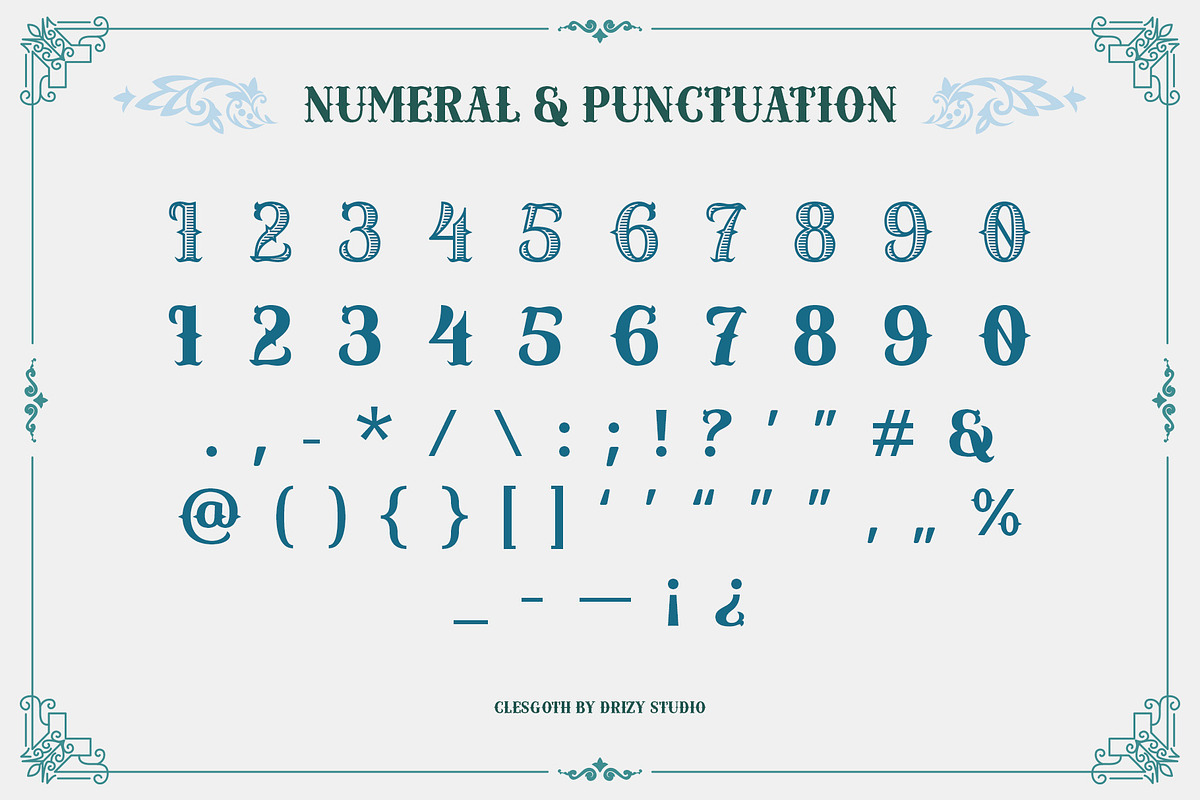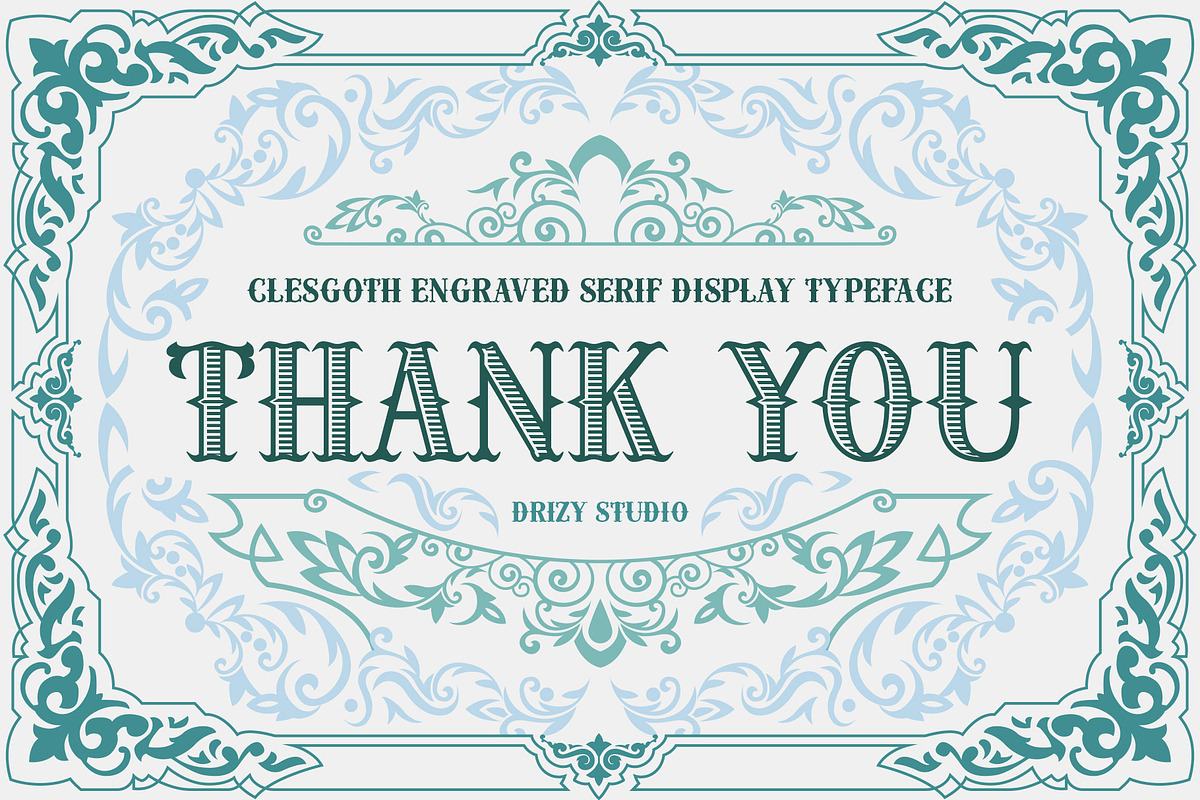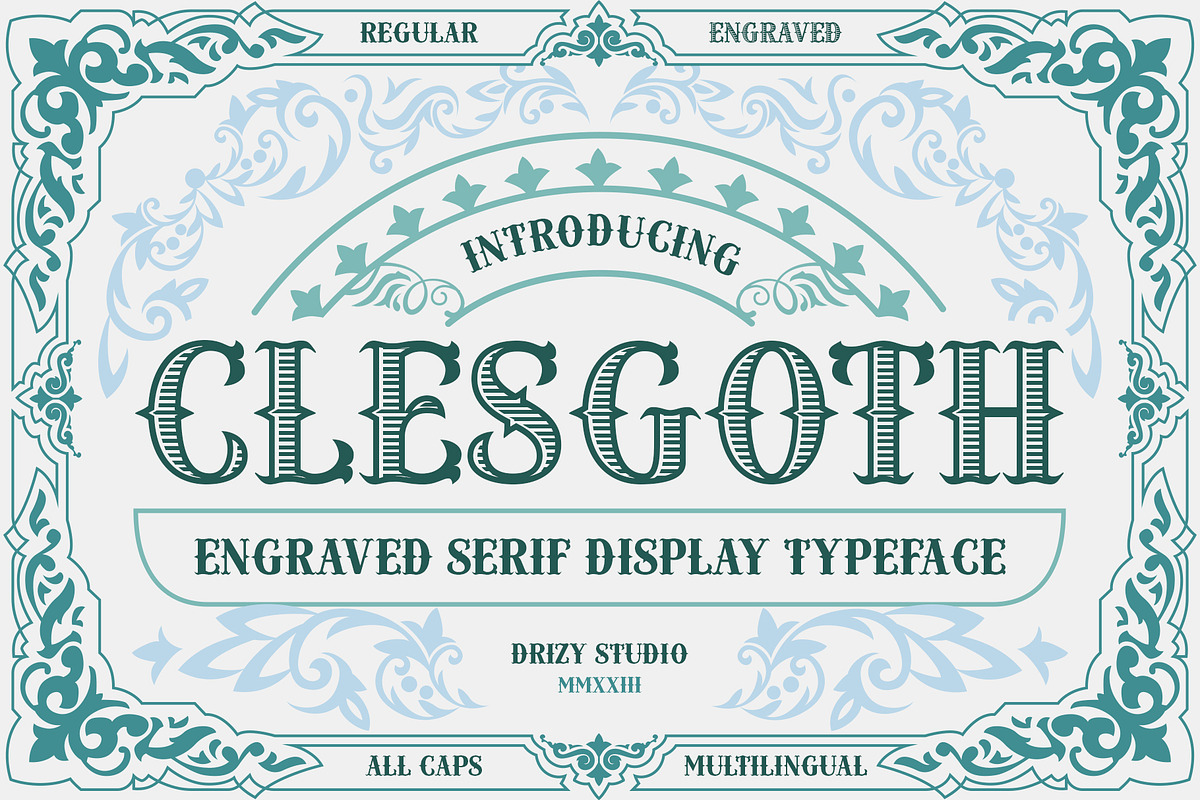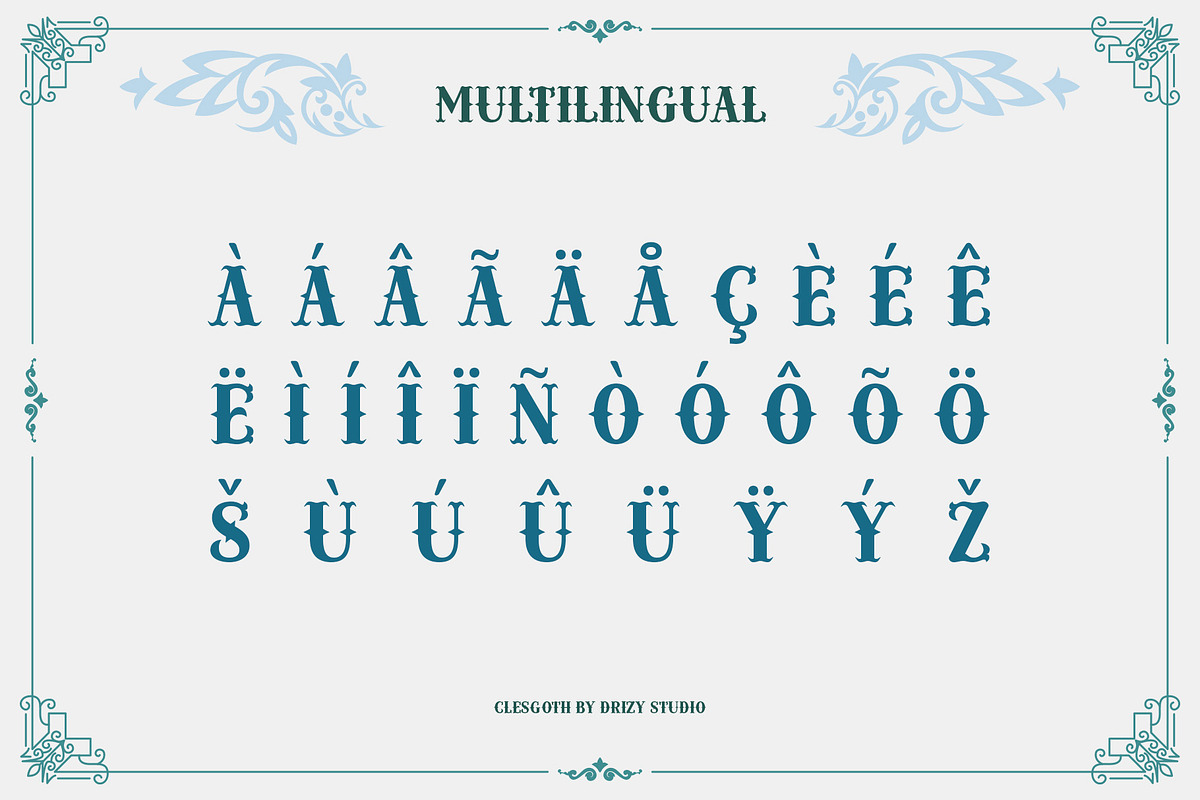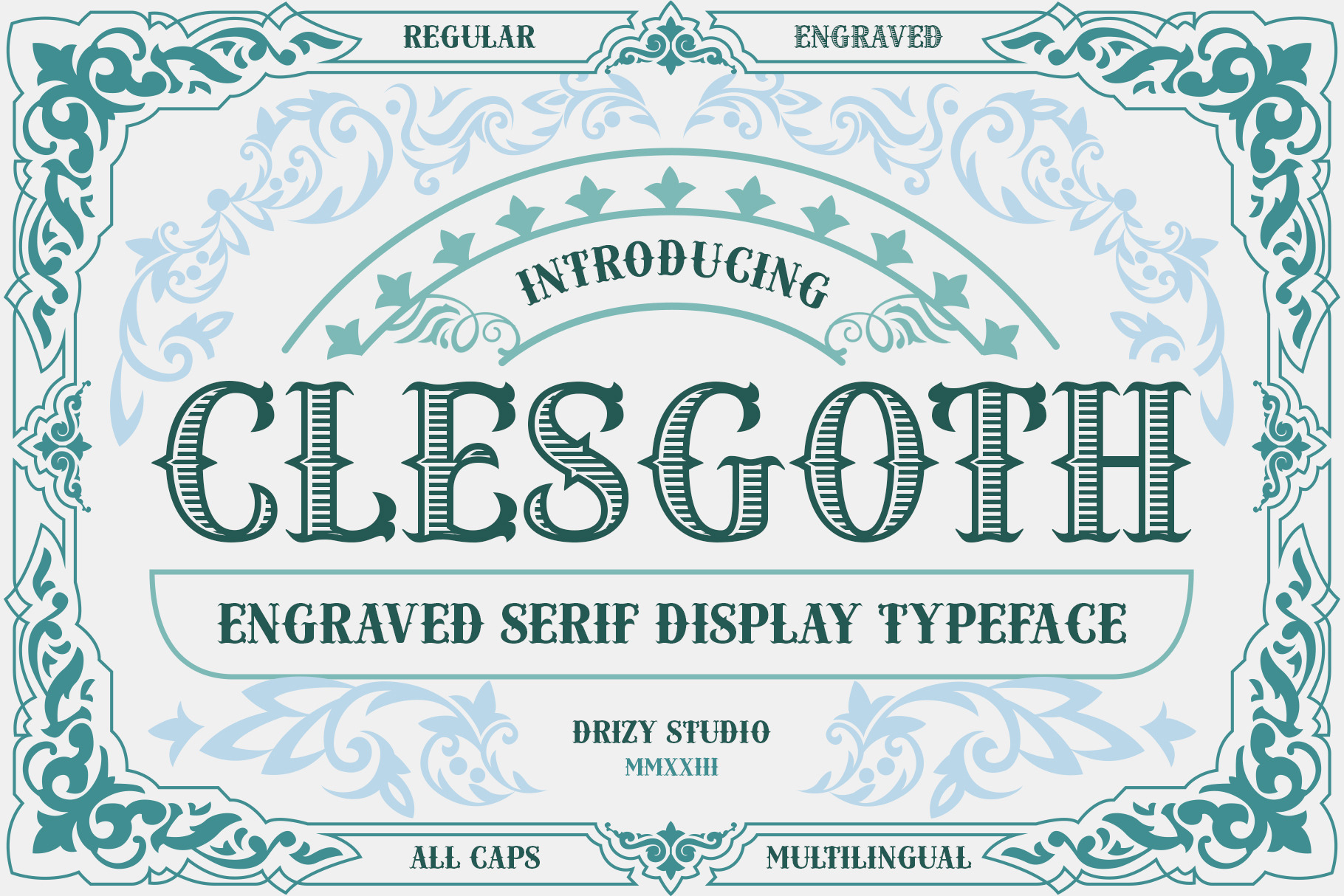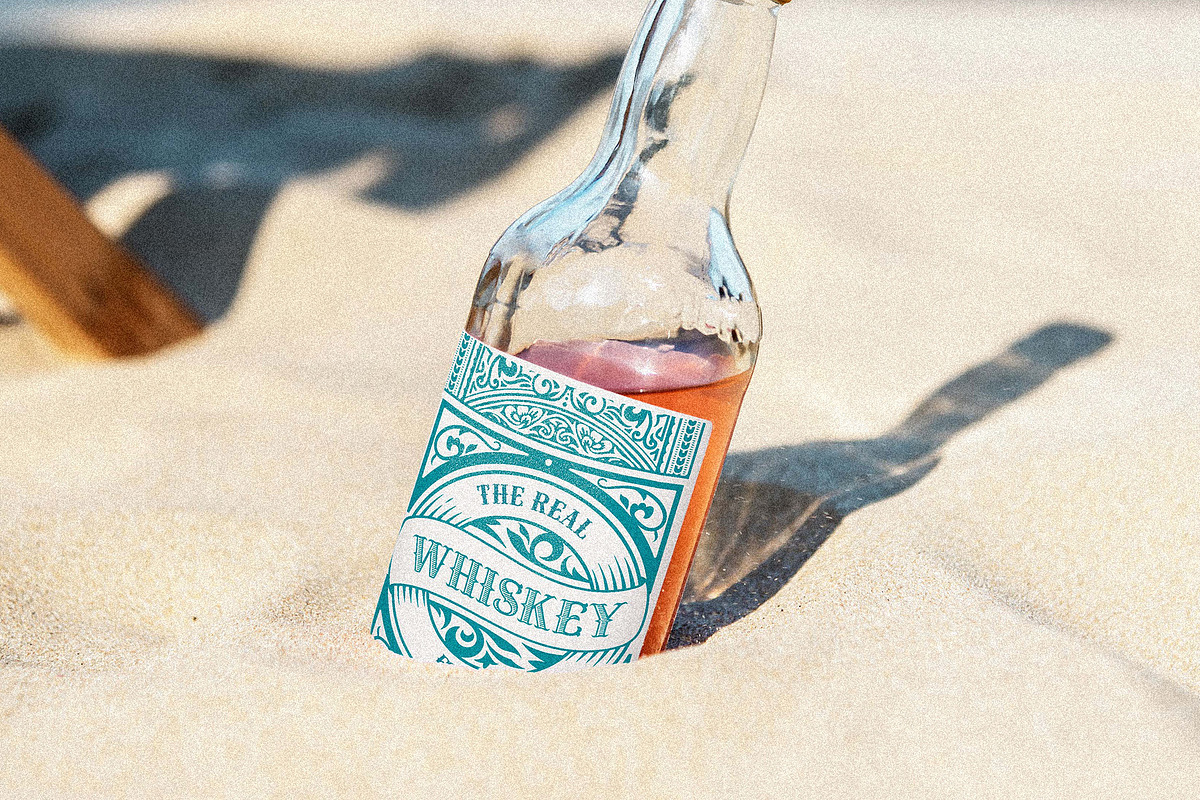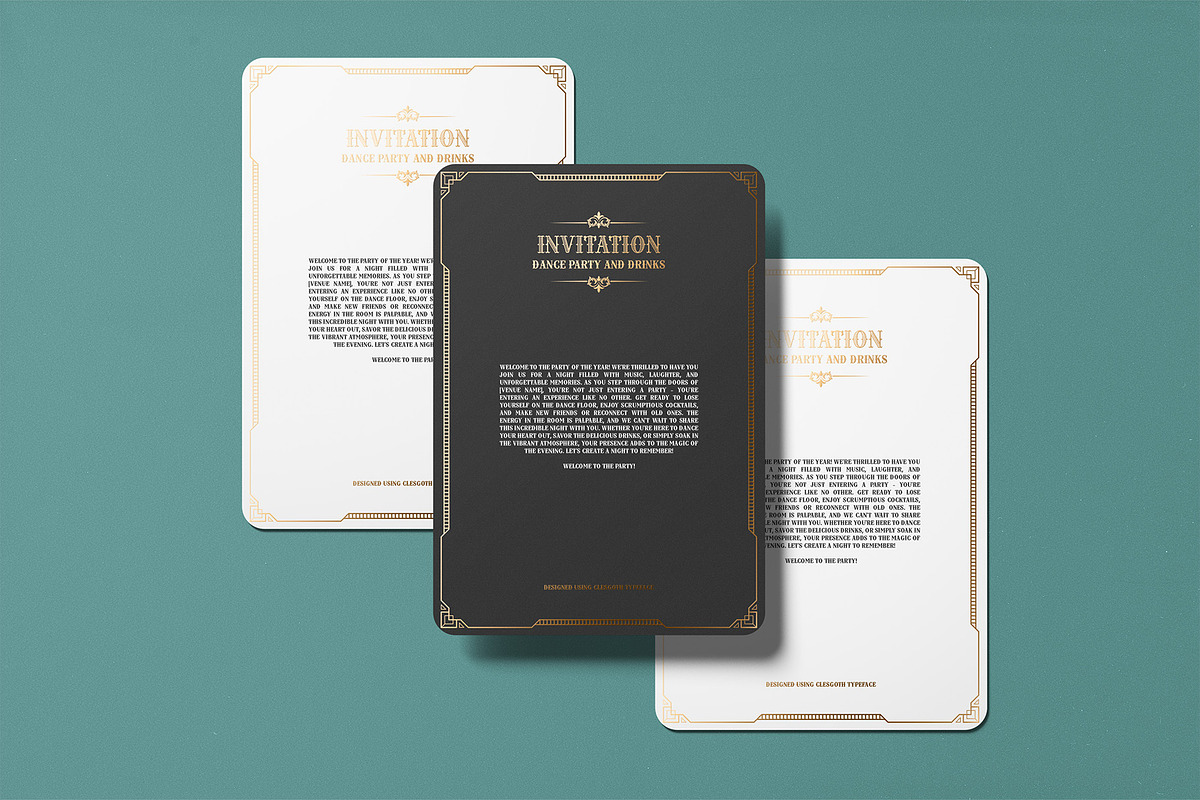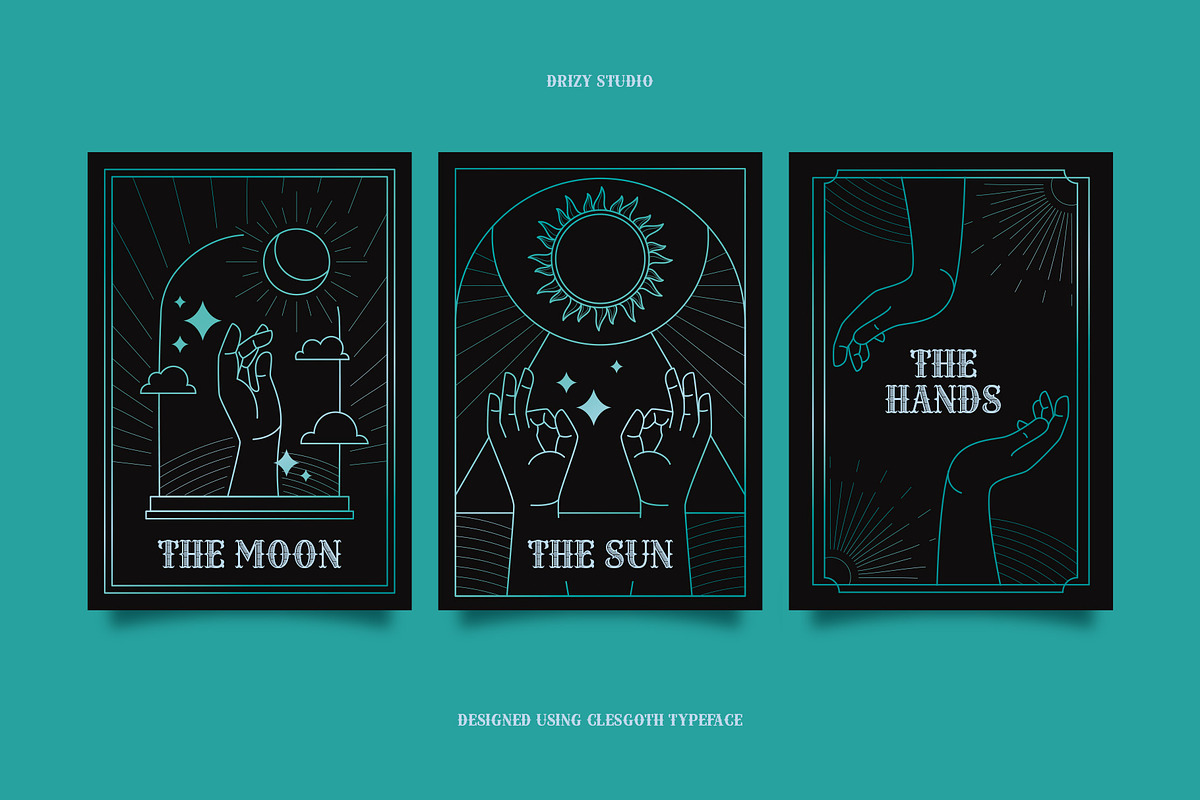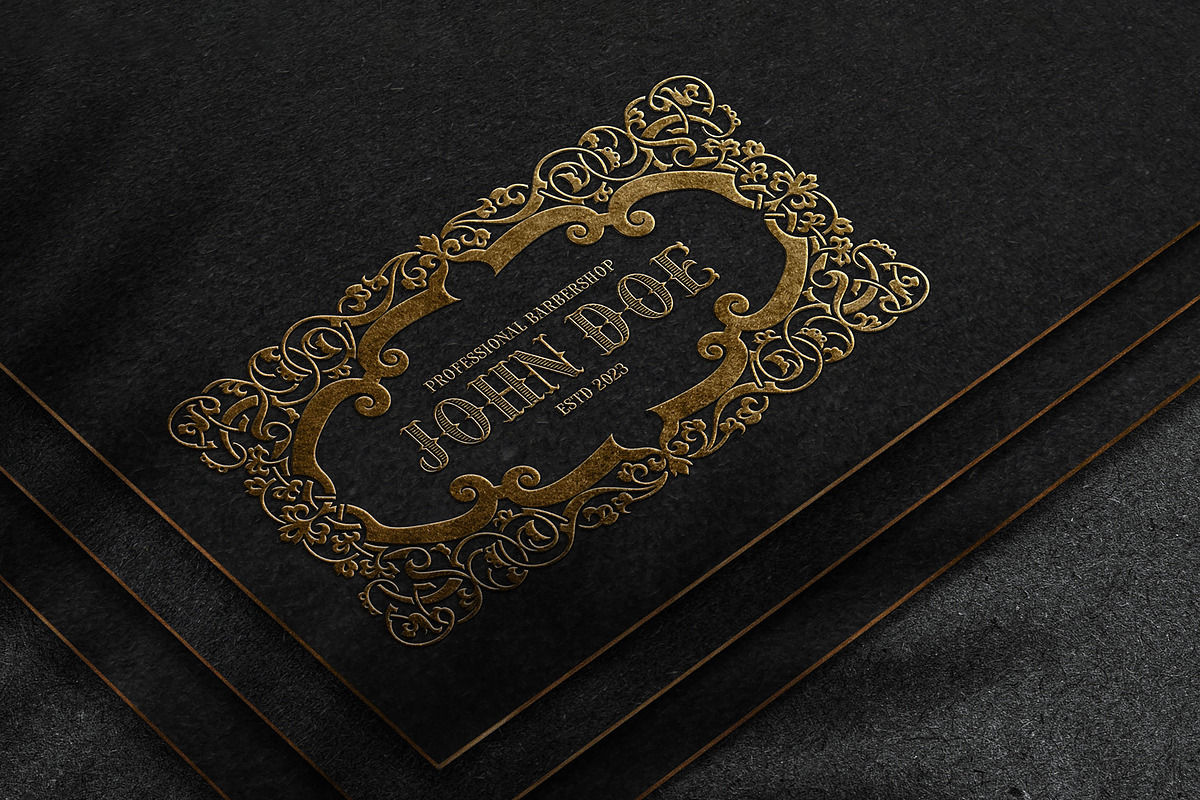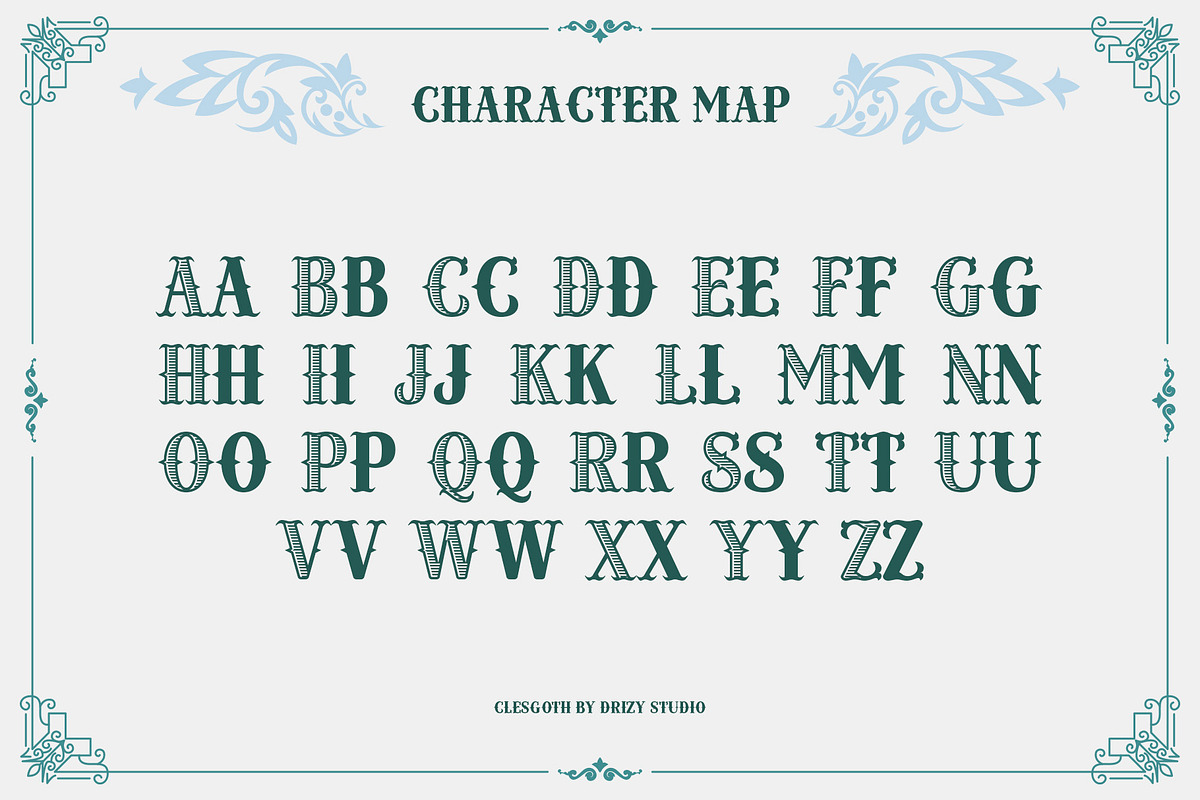
Clesgoth - Serif Engraved Font
Introducing Clesgoth - Serif Engraved Font, where timeless elegance meets precision craftsmanship. This sophisticated typeface is a tribute to the art of engraving, with its intricate serifs and fine details. Clesgoth adds a touch of class to any project, making it ideal for invitations, formal documents, book covers, and much more.
Clesgoth features: Character Set Variable: Regular & Engraved Punctuation & Numbers Multilingual Support